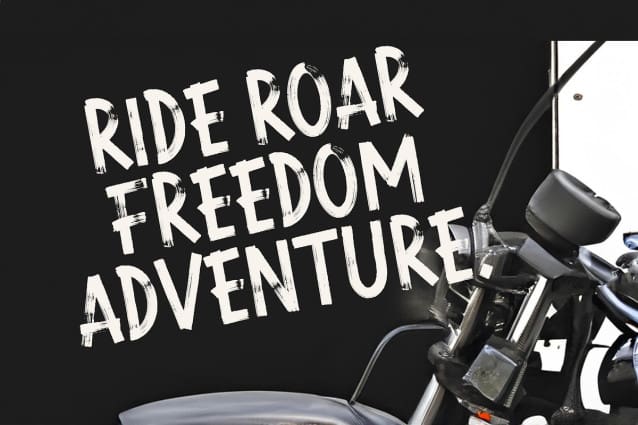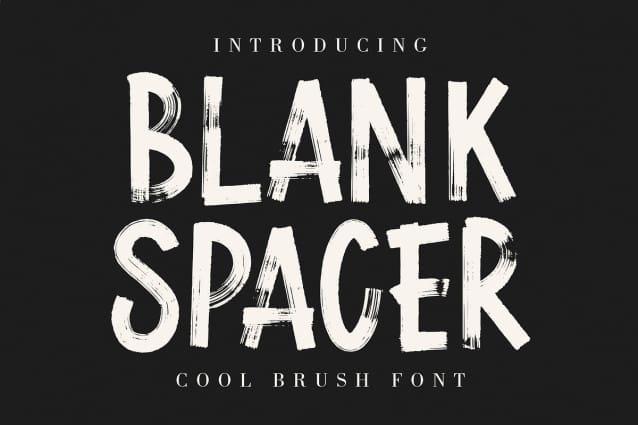
Blank Spacer Font
Blank Spacer Font is a captivating display brush font that exudes casual charm. With its unique and stylish design, this font adds a touch of spontaneity to any project, making it perfect for a variety of creative endeavors.
Ideal for a range of applications, “Blank Spacer” is a versatile font that can elevate your designs across various platforms. Whether used in branding, social media graphics, or advertising materials, this font effortlessly brings a dynamic and casual flair to your visual content, making it stand out in the crowd.
Discover the distinctive features of “Blank Spacer” that set it apart. This font boasts expressive brush strokes that create a handcrafted feel, adding a personalized touch to your text. The carefully crafted characters offer a harmonious balance between legibility and artistic flair. Additionally, “Blank Spacer” includes a diverse set of glyphs, ensuring compatibility with different languages and allowing you to unleash your creativity without limitations. Elevate your design projects with the unique and captivating qualities of “BlankSpacer.”